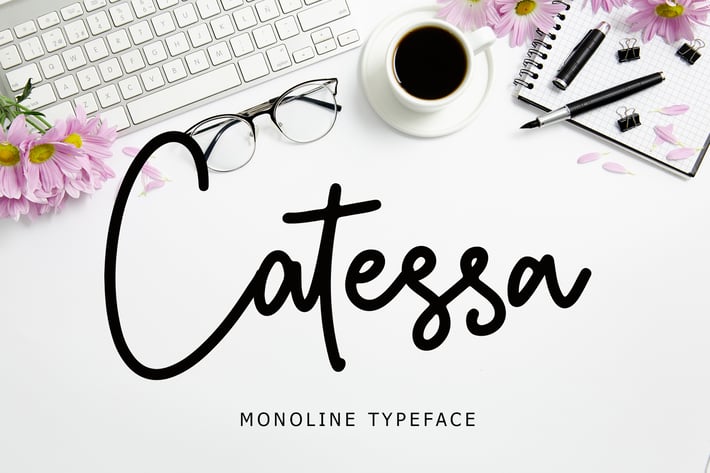
Catessa Monoline Typeface
Catessa Monoline Typeface is a Modern Script font that can make your text appear elegant, luxurious, and modern!
Catessa is perfect for branding projects, logo, wedding designs, social media posts, advertisements, product packaging, T-shirt design, product designs, label, photography, watermark, invitation, stationery, and any projects.